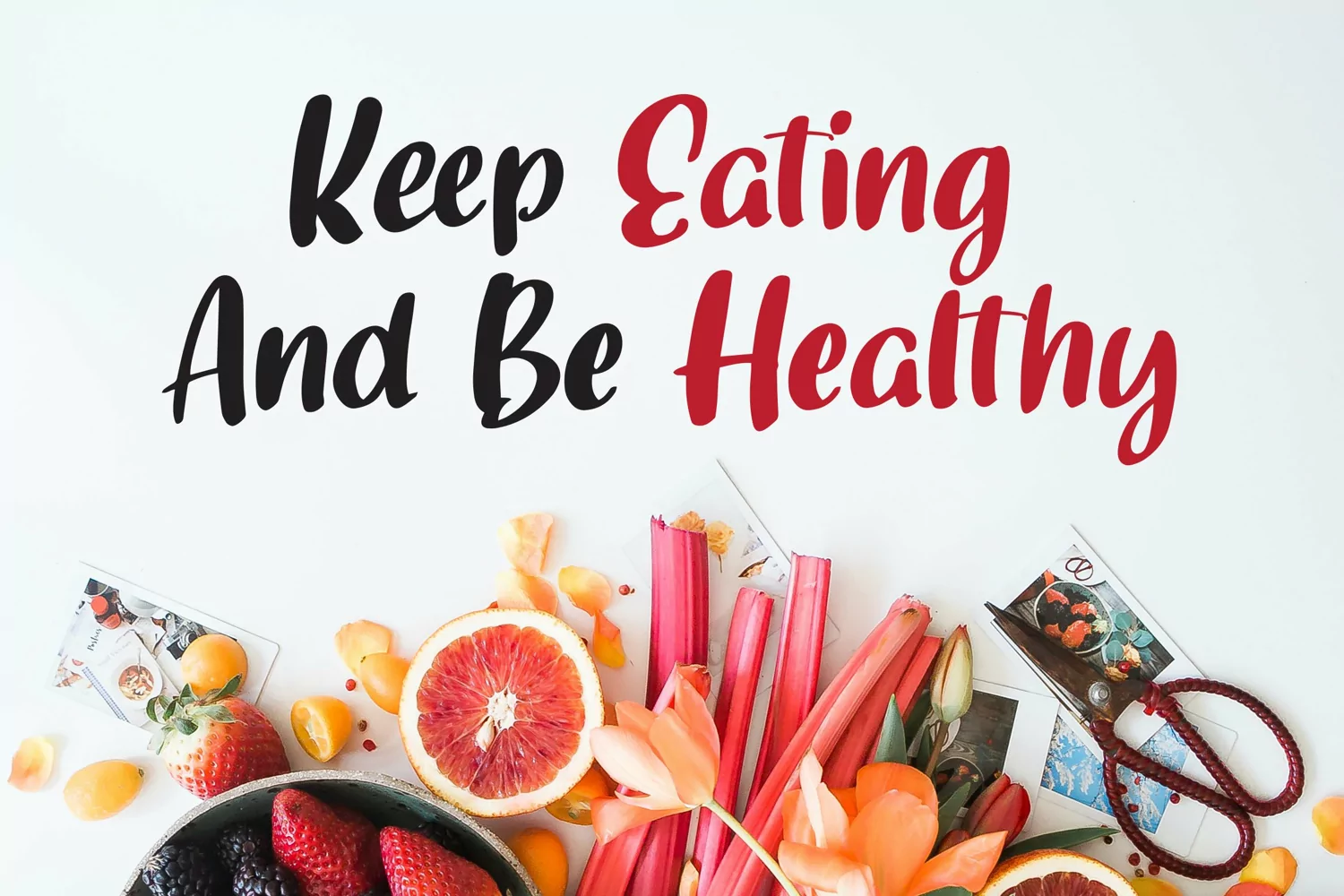
Gourmette - Handlettering Font that contain lowercase, uppercase, symbol, and also support multi language. There’s a lot ligatures in this font. This Font also comes with ligatures, alternates and many more. this font suitable for fashion, branding, catalog and other design what you want.
Gourmette